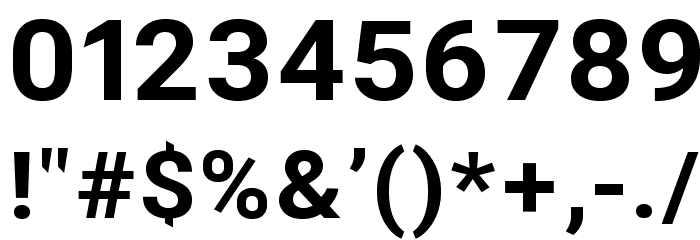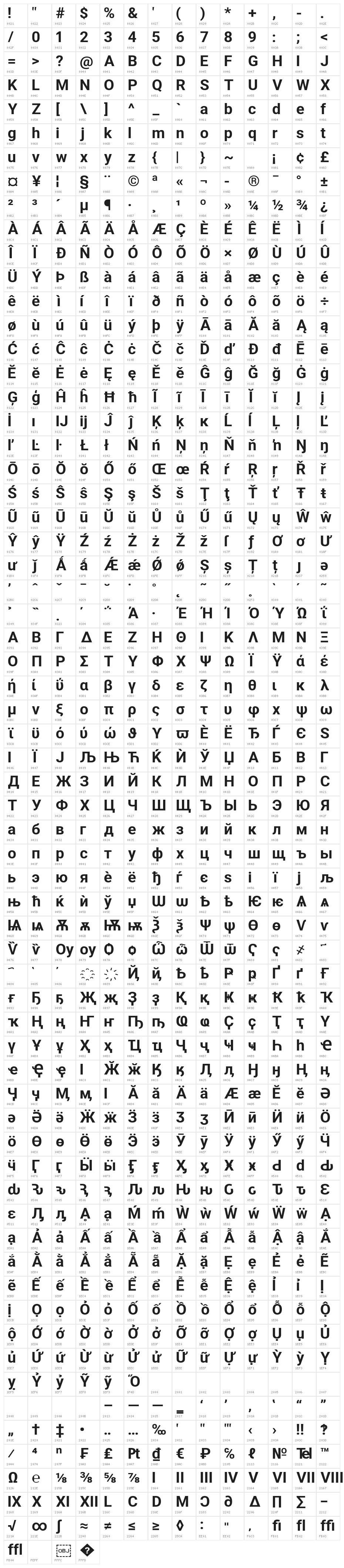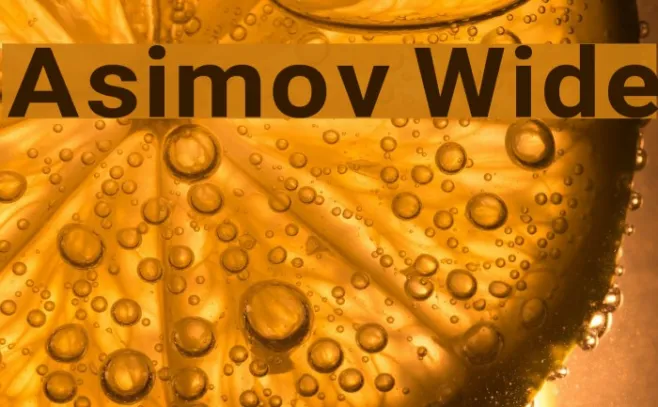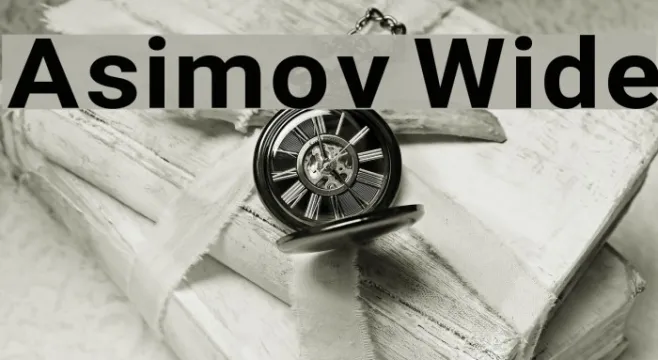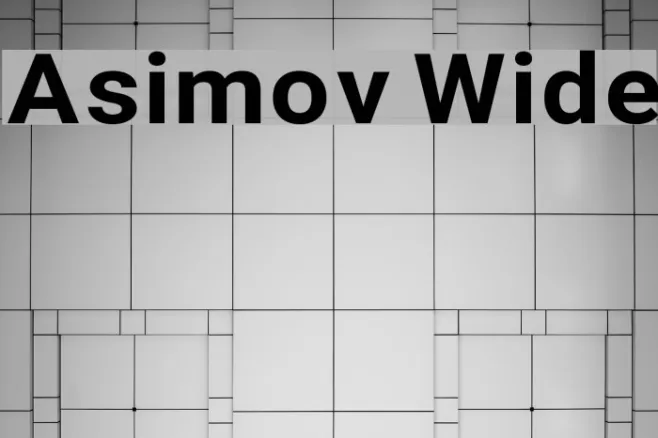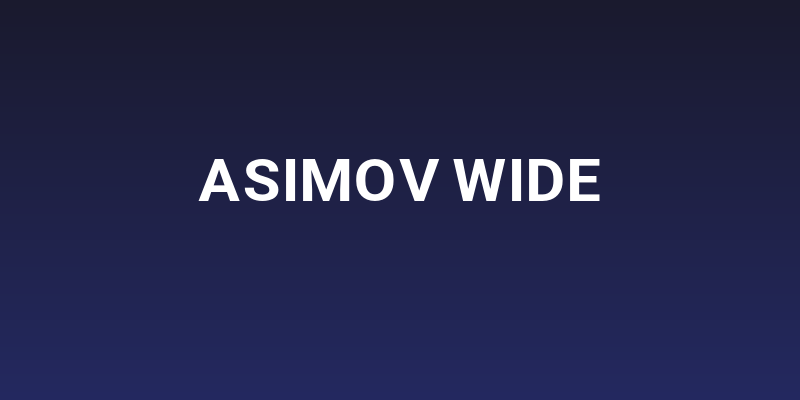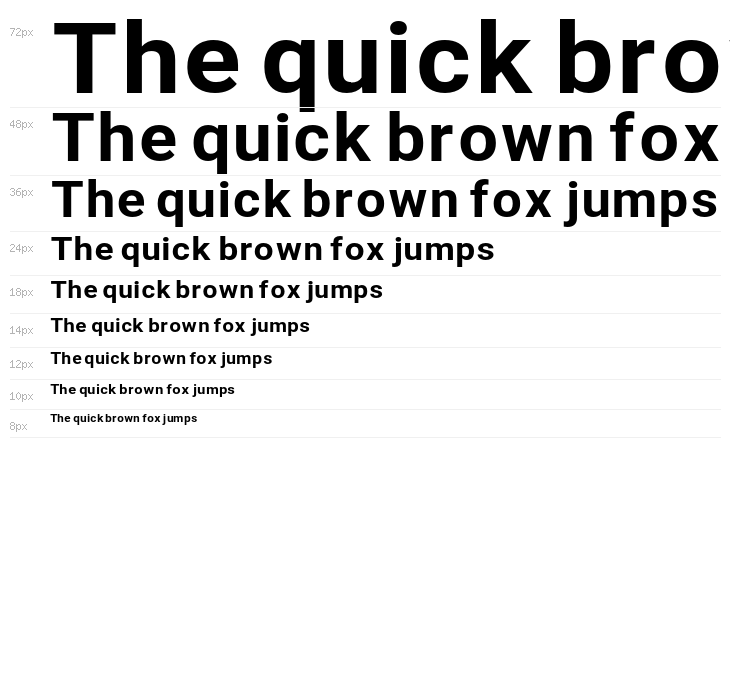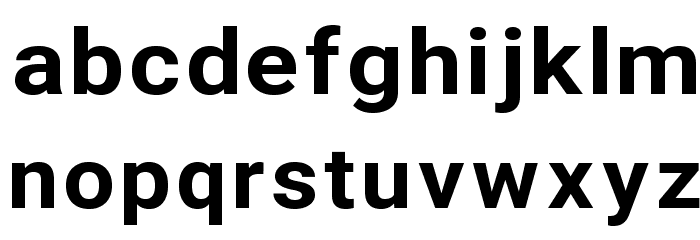
Asimov Wide Font
Asimov Wide Description
This typeface features a bold and modern sans-serif design with clean lines and a geometric structure. The uppercase letters are uniform in height, providing a strong and cohesive appearance. Lowercase characters maintain a consistent style, offering a balanced look that complements the uppercase set. The numerals are clear and easily distinguishable, making them suitable for various applications. Special characters are well-defined, enhancing the font's versatility. Overall, this typeface is designed for readability and impact, making it ideal for both digital and print media.
| Use Case | Headlines, Logos, Digital media |
| Proposed Projects | Ideal for branding, advertising, web design, and editorial layouts. |